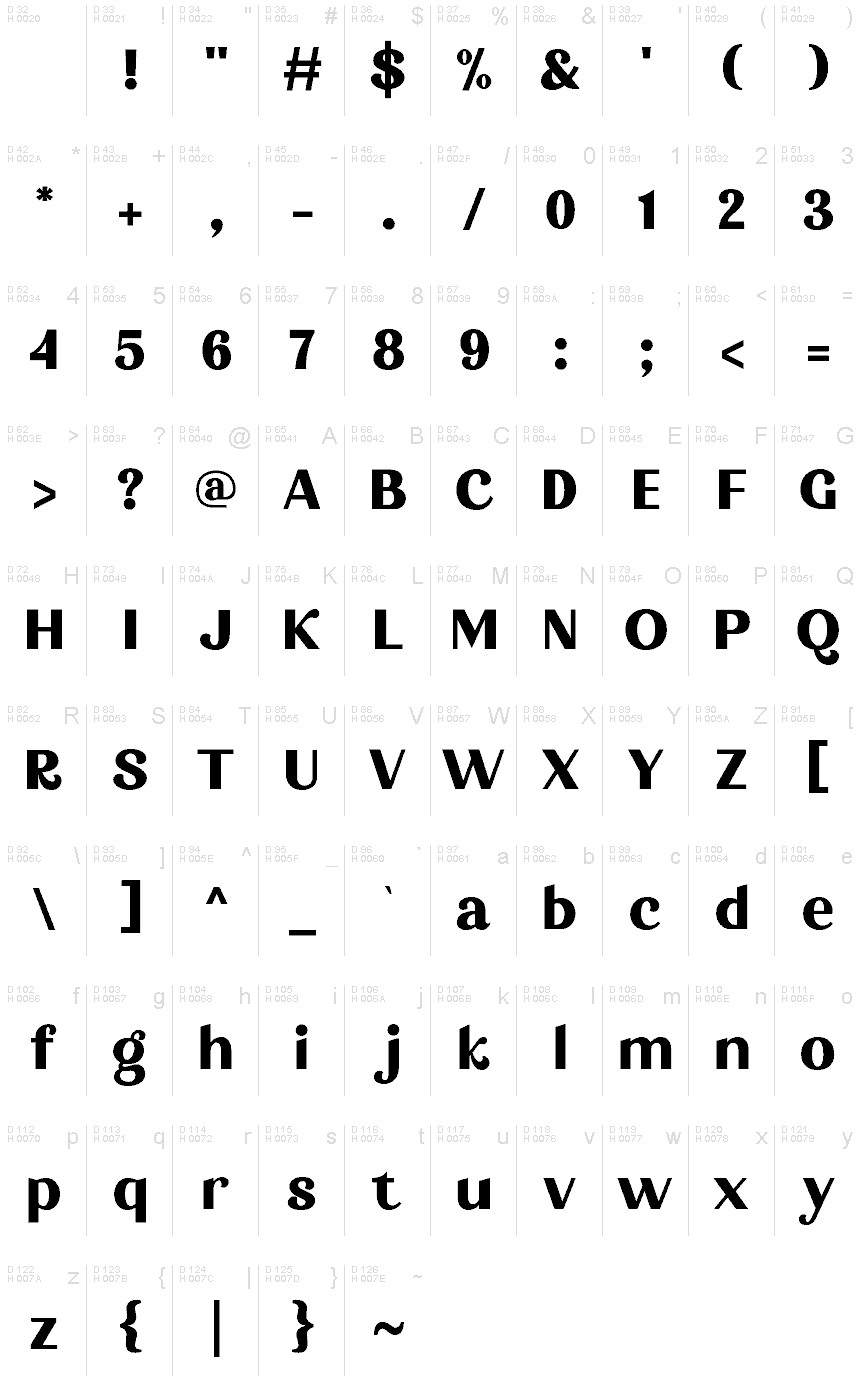
Forbiden Regular
Forbiden font is a bold sans serif font designed by Glyphstyle. It has structured geometric shapes following a minimalistic yet modernist approach to design. With its clean lines and uniform style, this simple but extremely versatile font will make a great addition to your typography toolbox for professional or personal work.
Use it in posters, logos, headers, infographics, magazines, social media graphics, advertising material and web display design among many more options.